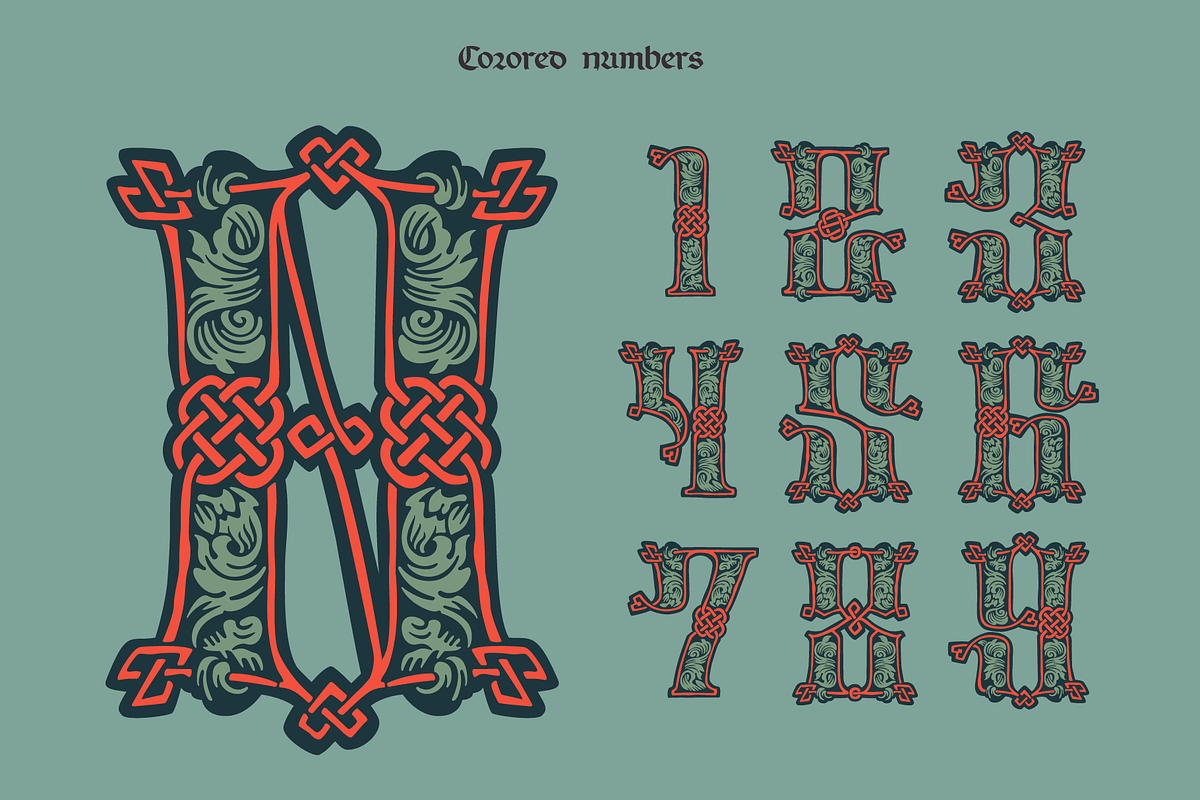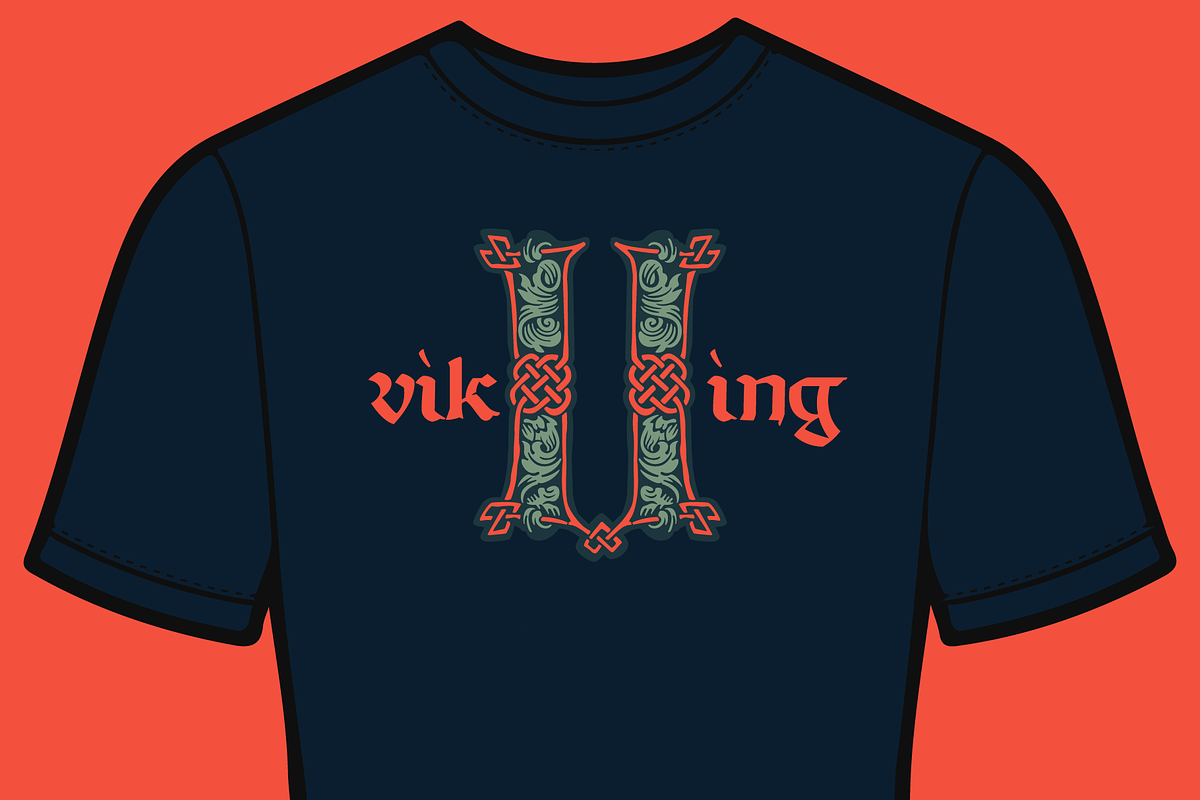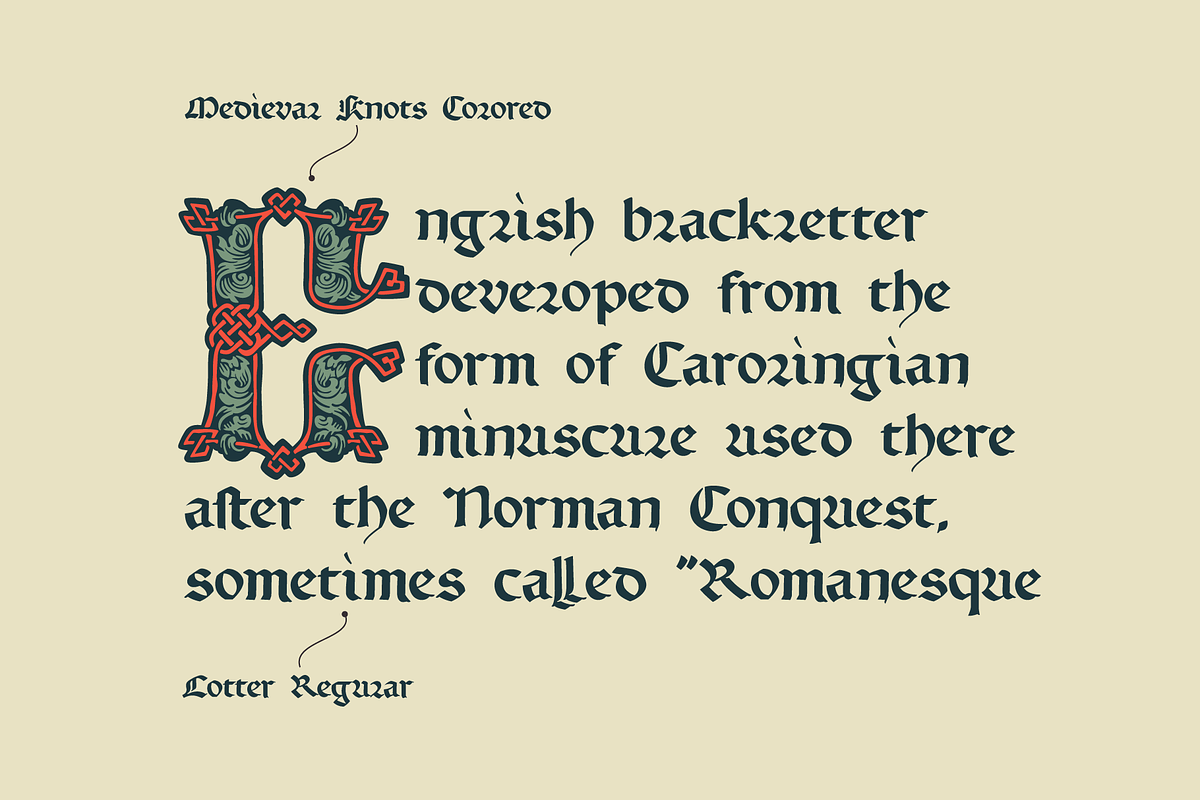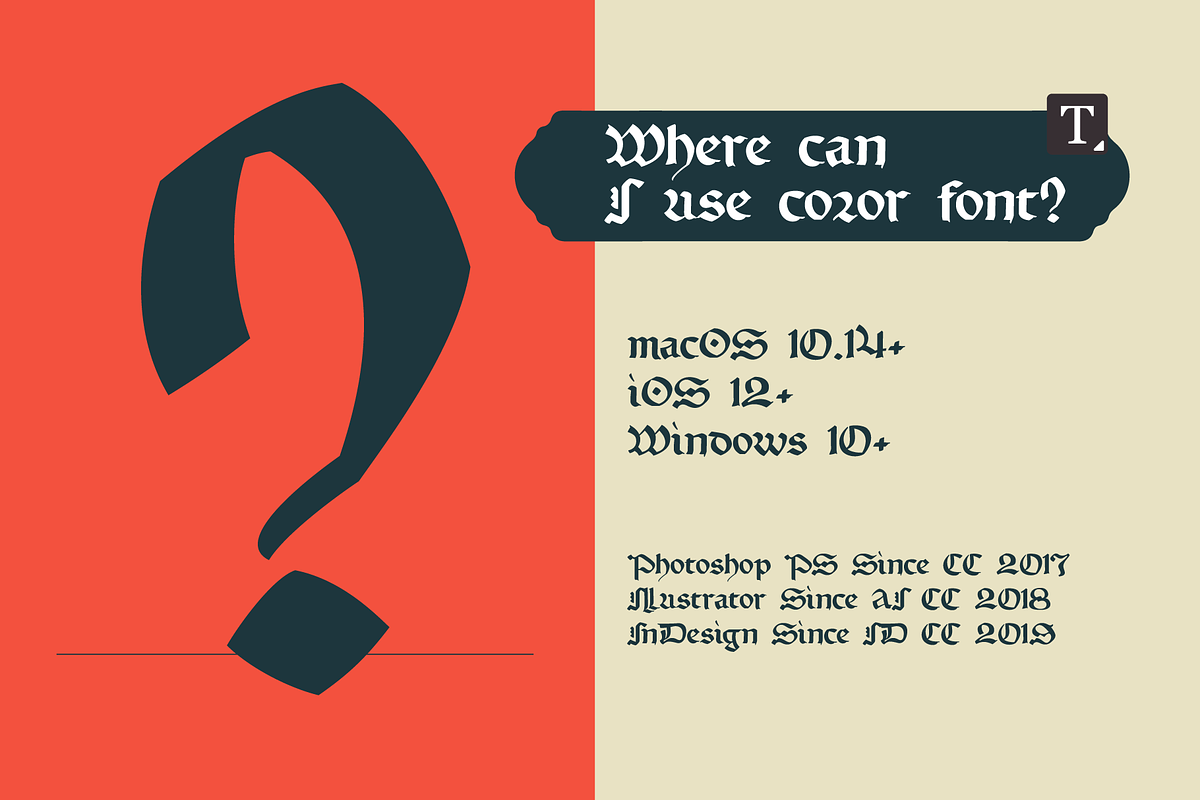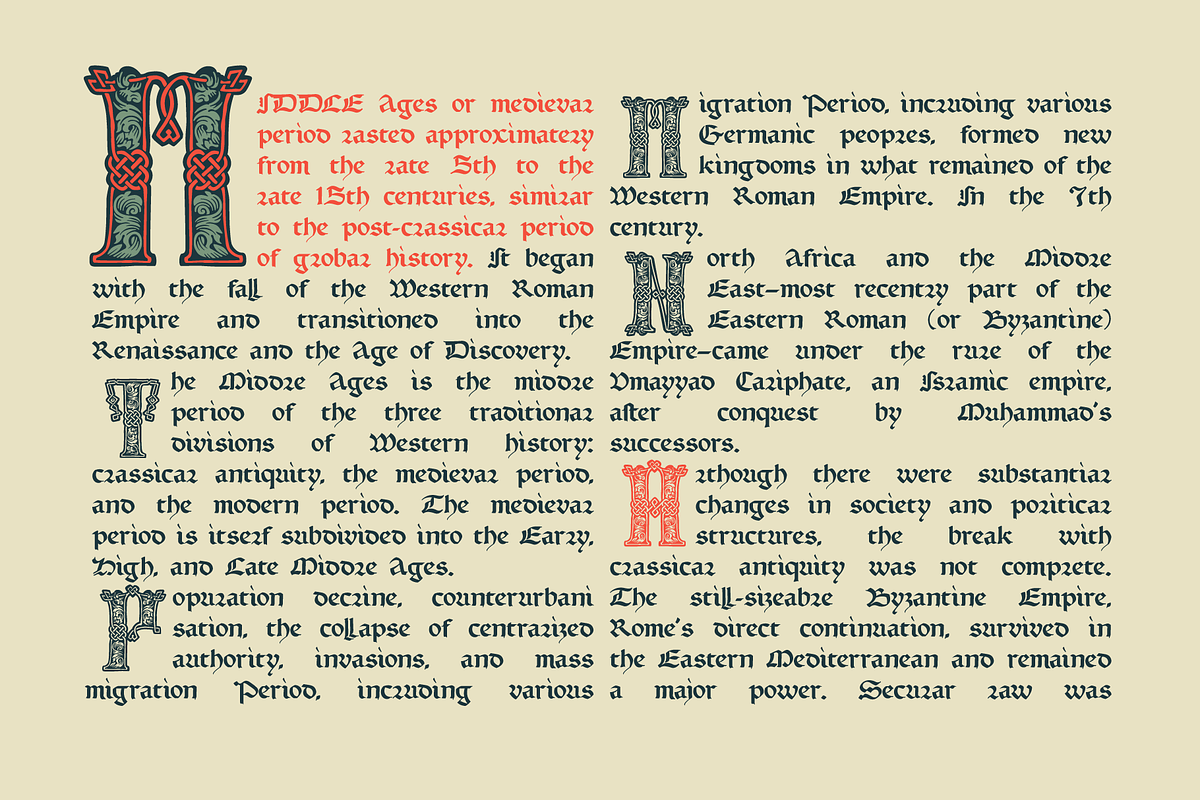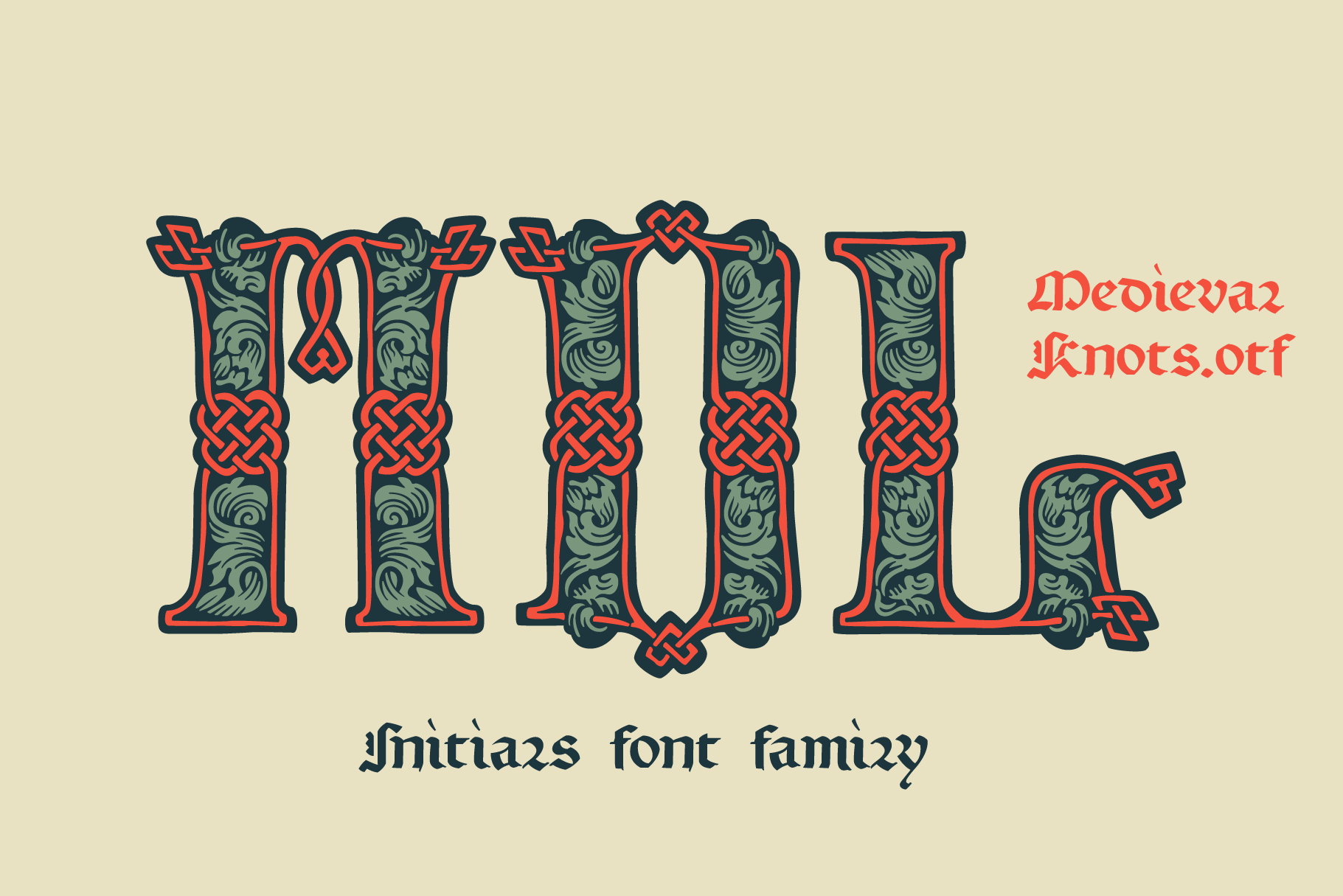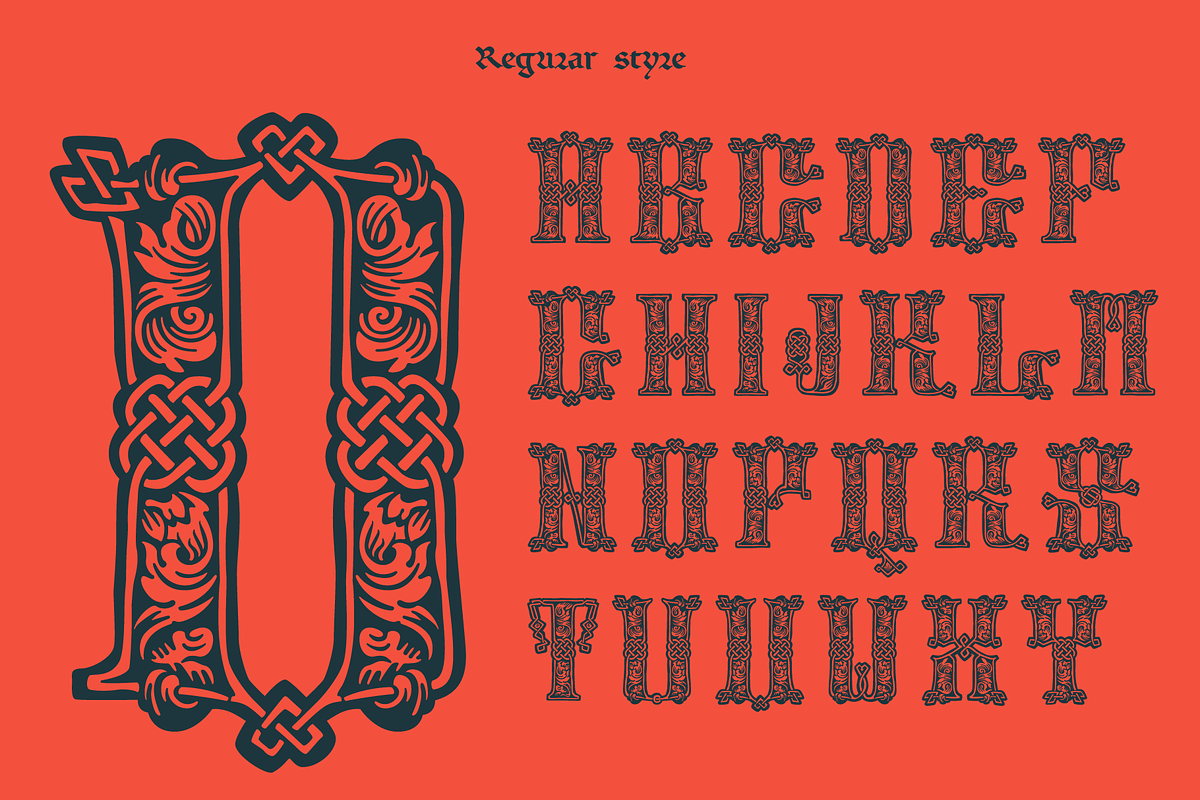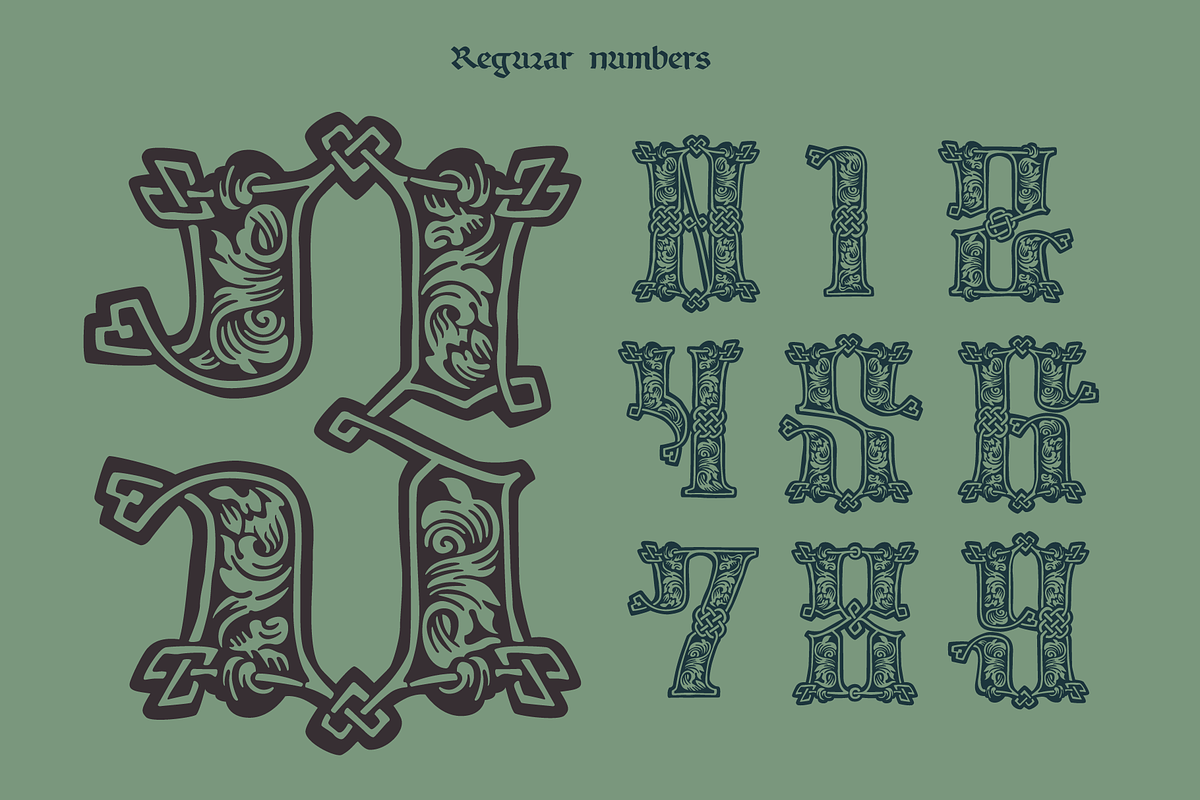
Medieval Knots Drop caps font
Medieval Knots font family has Regular and Colored styles. It inspired by Celtic knots initials and lines. It's all you need to precisely imitate medieval style text. Use this font as a decorative element at the beginning of a paragraph or section, other part of the paragraph should be in regular black letter font.
You’ll get Drop Caps & Numbers set.